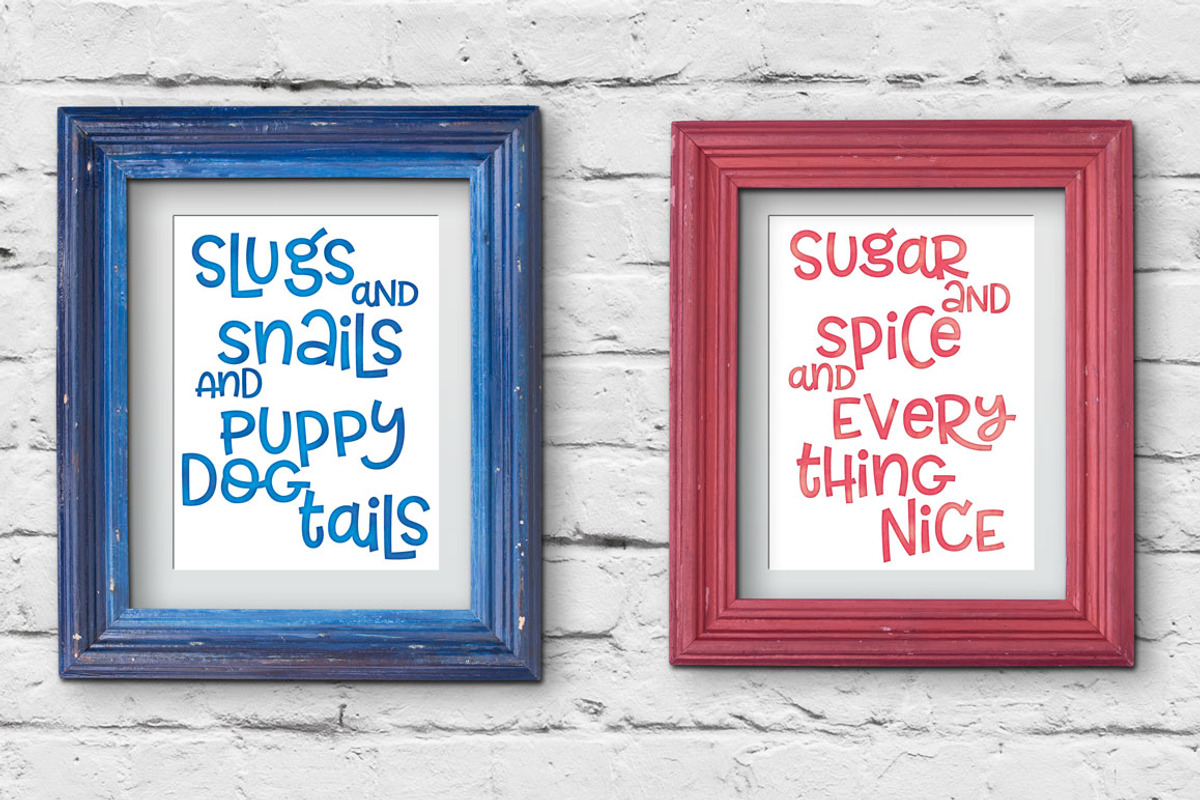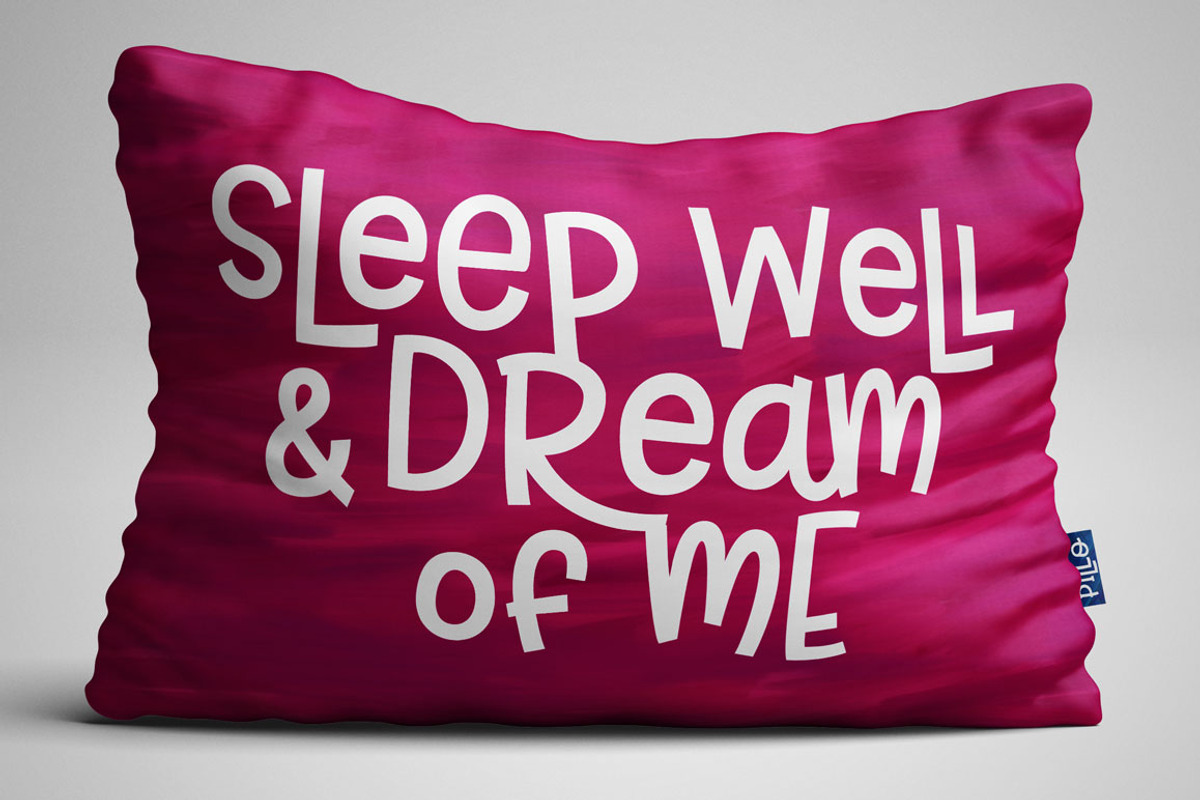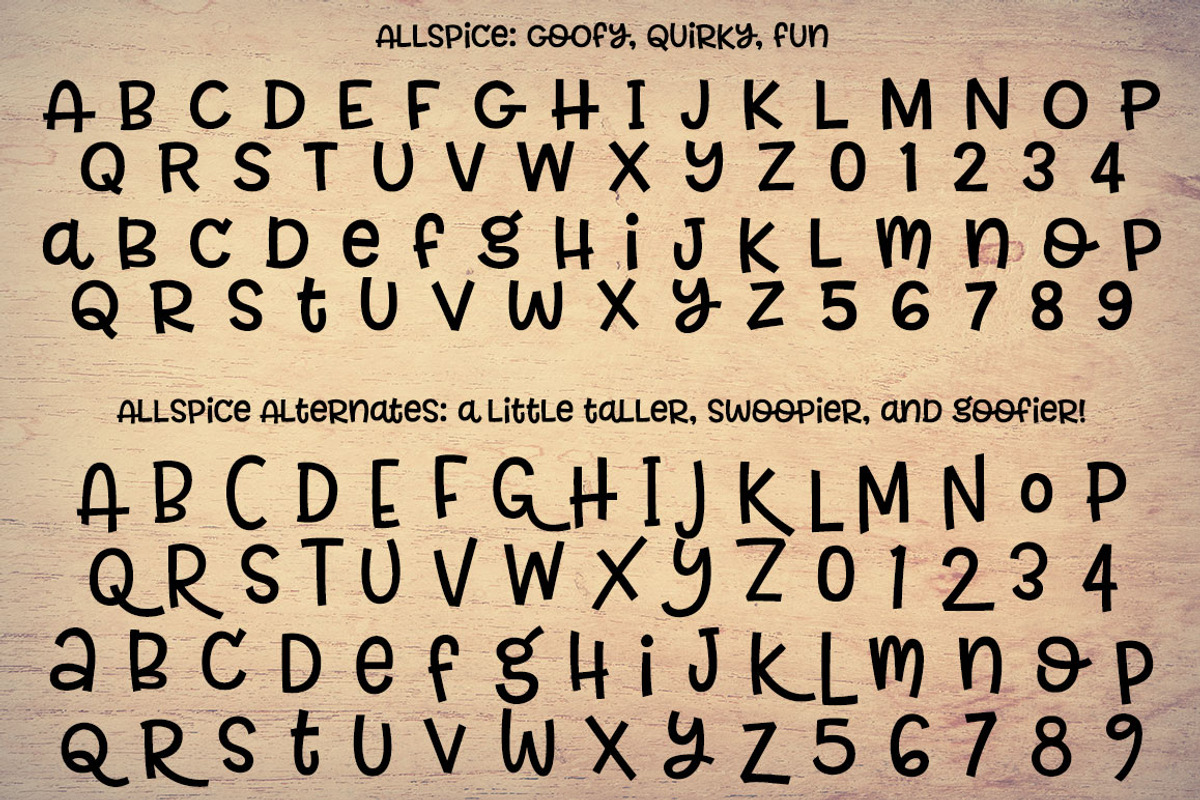
Allspice is a tasty new font for all of your fun projects! It’s a mixed-case font (uppercase and lowercase are all the same height) so you can mix and match letters within a word.
Plus, it comes with a full second font file with alternates, to give you even more options! Not only are the letters alternates — all of the numbers, punctuation, and accented characters are alternates too!
- Uppercase A-Z
- Lowercase a-z
- Numbers 0-9
- Standard punctuation
- Over 200 accented characters for language support